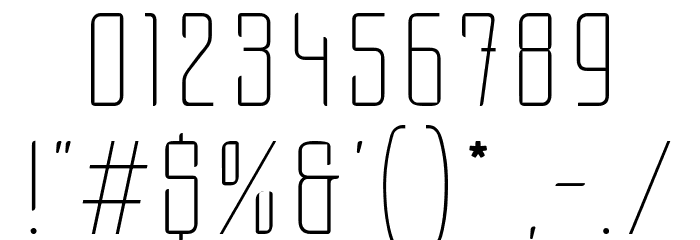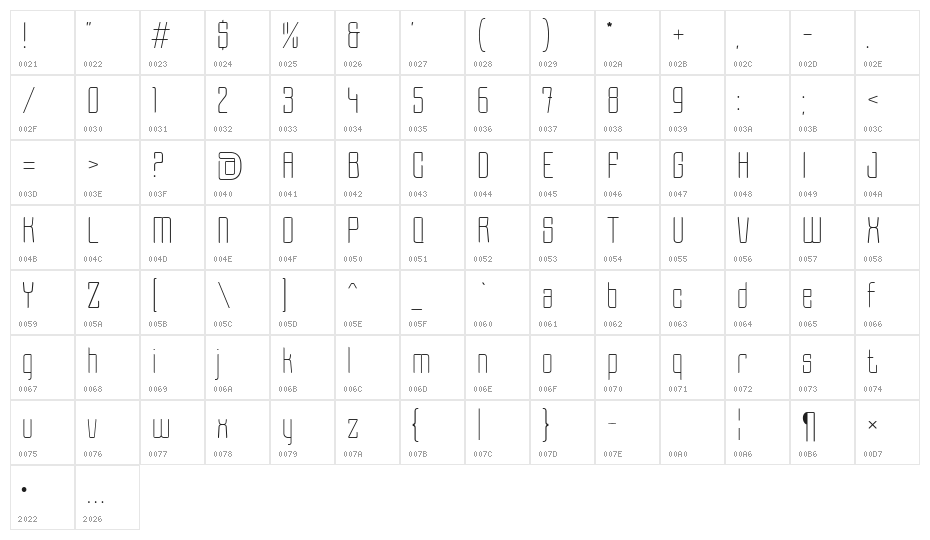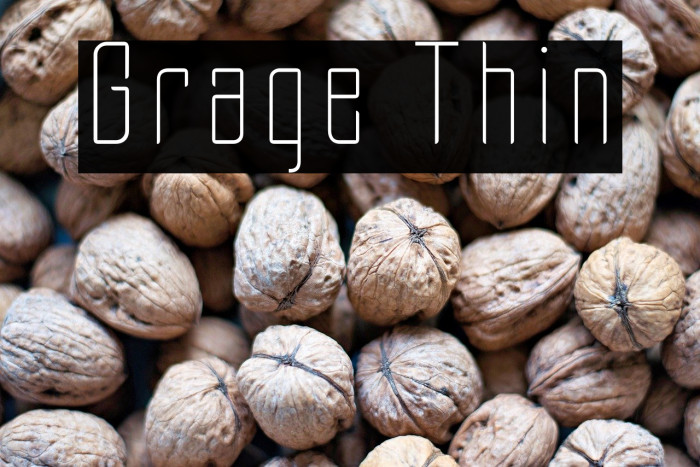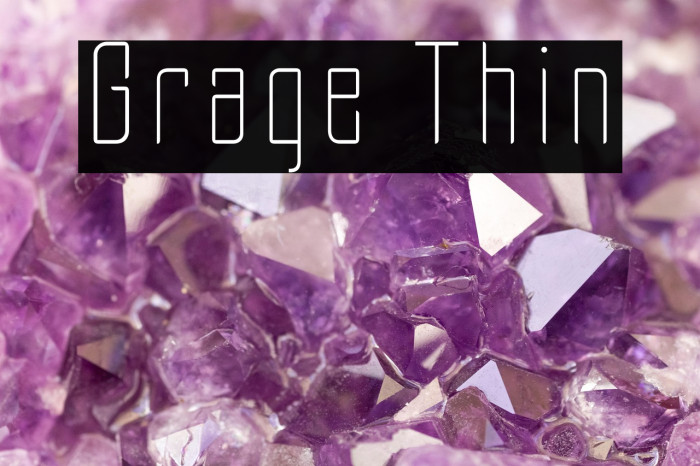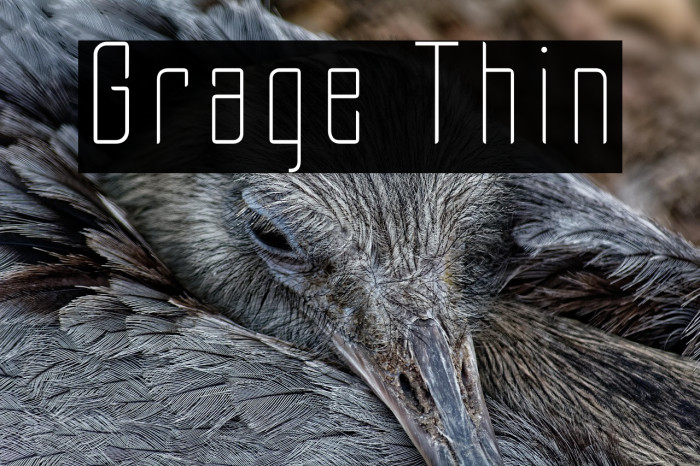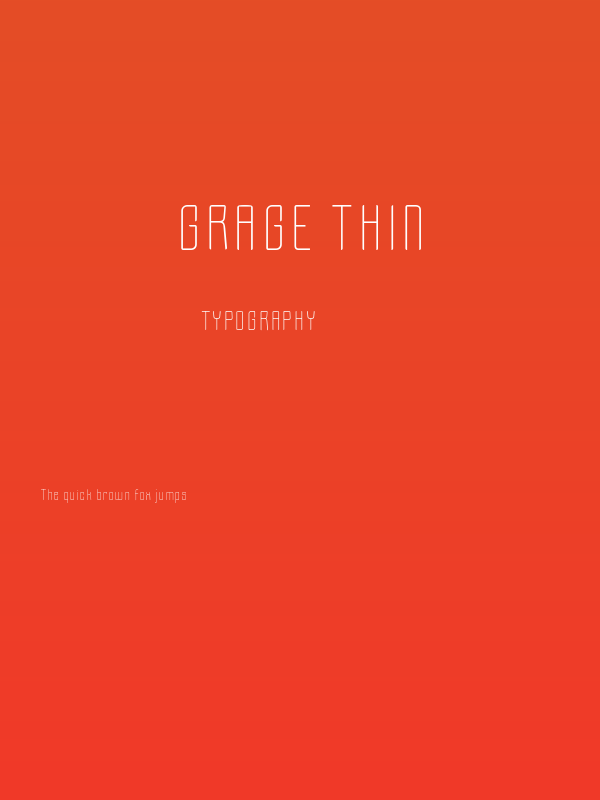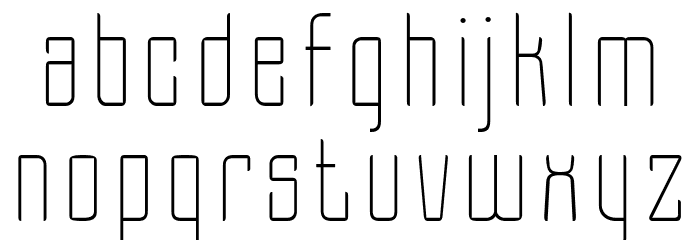
Grage Thin Font
Grage Thin Description
This font features a sleek and modern design with thin, elongated characters that give it a futuristic and minimalist appearance. The uppercase and lowercase letters are consistent in their geometric structure, with straight lines and sharp angles. The numerals and special characters maintain the same thin stroke, ensuring uniformity across all glyphs. The overall design is clean and uncluttered, making it suitable for contemporary projects that require a touch of elegance and sophistication.
| Proposed Projects | Ideal for modern branding, tech-related projects, minimalist posters, and sleek product packaging. |